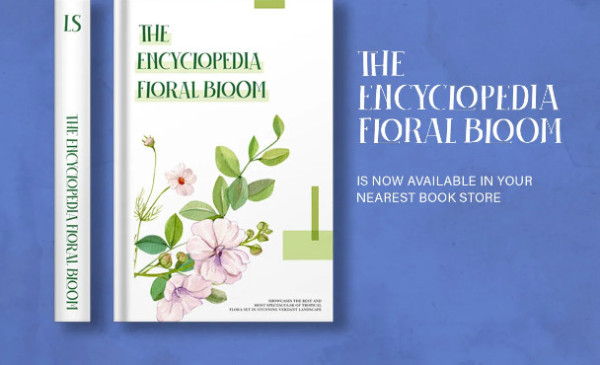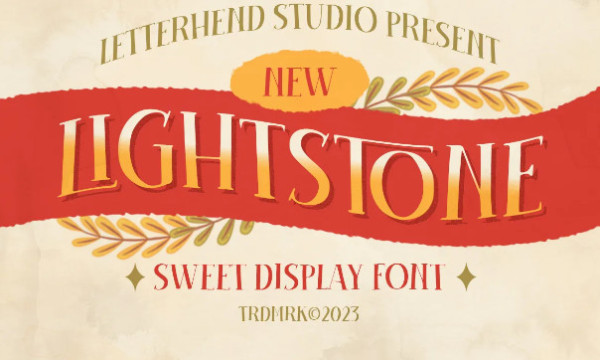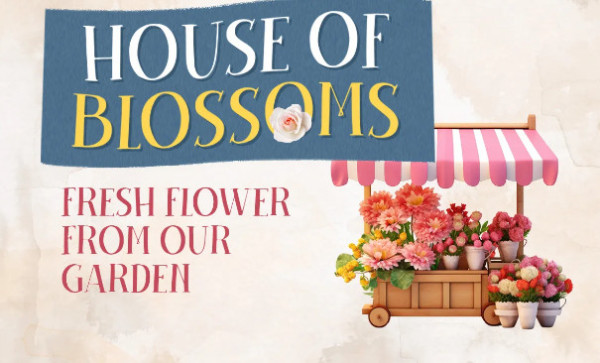
Lighstone Font
Lighstone Font is a sweet display with classic letterform. You can play around with the ligatures. This font perfectly made to be applied especially in logo, and the other various formal forms such as invitations, labels, logos, magazines, books, greeting / wedding cards, packaging, fashion, make up, stationery, novels, labels or any type of advertising purpose.